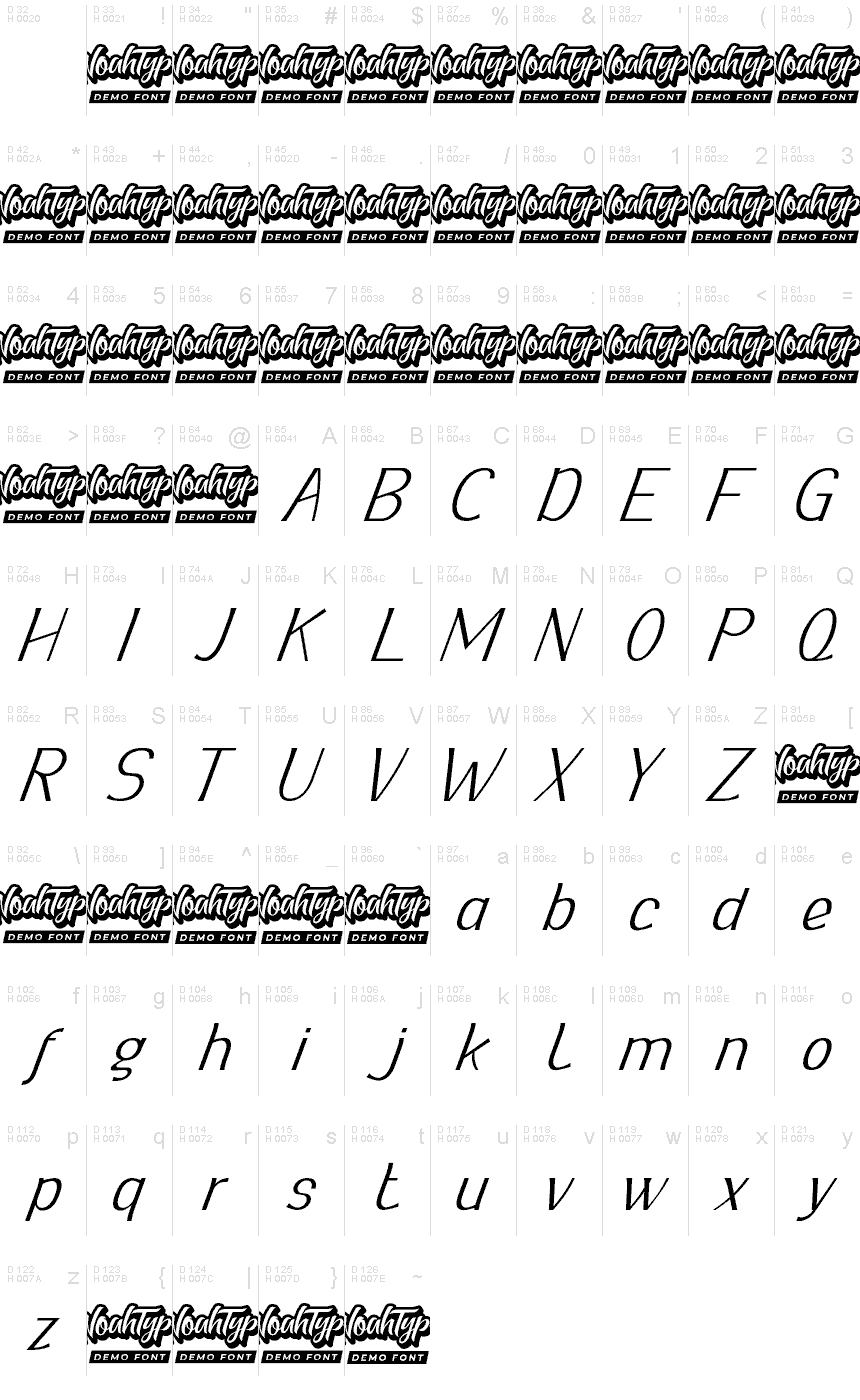
Your Everyday Demo Thin Italic
Your Everyday Thin Italic font by Noah Type embodies elegance with its modern, sophisticated style as a refined and timeless sans serif. This professional free font holds years of experience and premium quality in the slight curves of its italic text. Whether using for large, small, or both- Your Everyday Thin Italic is versatile for any purpose.
This light-weighted font is perfect for covers, branding items, stationery collections, editorial designs, posters or banners, book covers focusing on the modern reader’s experience. Its mostly digital domains can showcase web design typographies and app interfaces with great effect delivering functionality at touch points needed both aesthetically pleasing but effectively communicative balance possible!